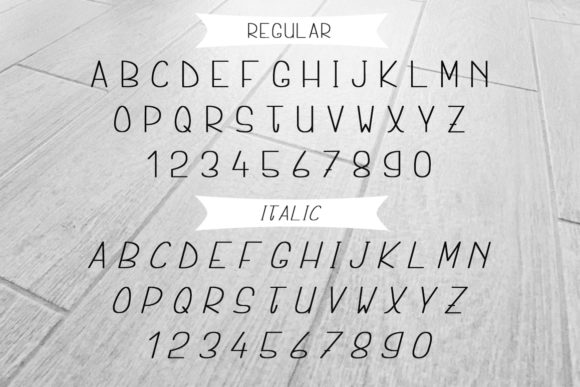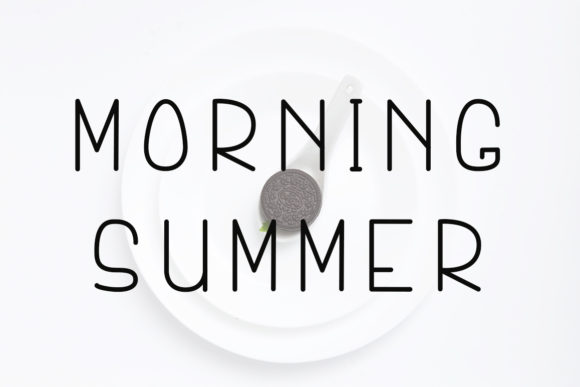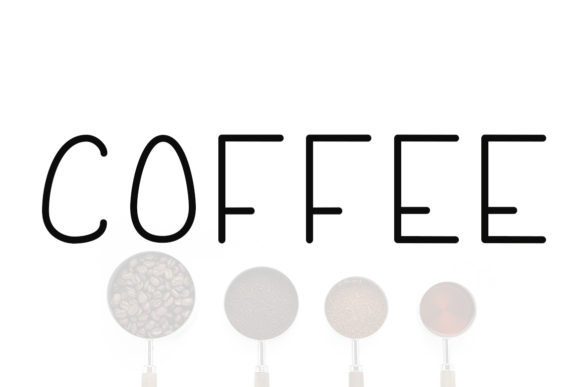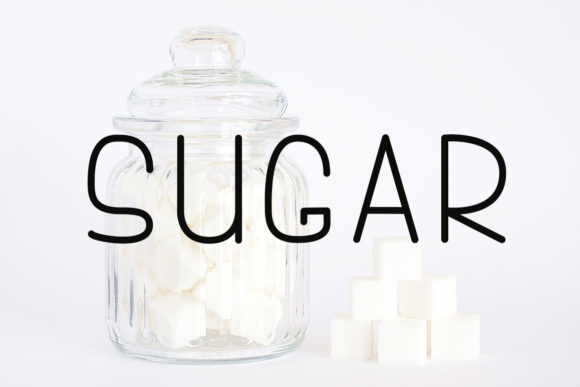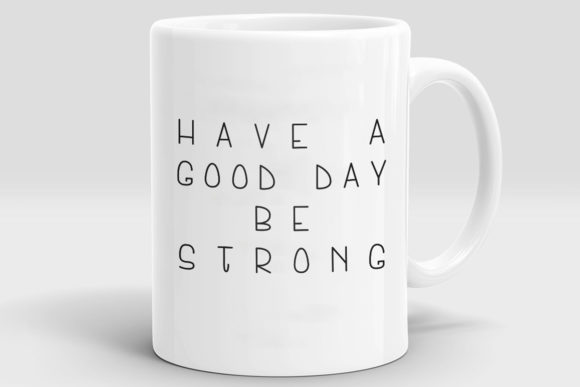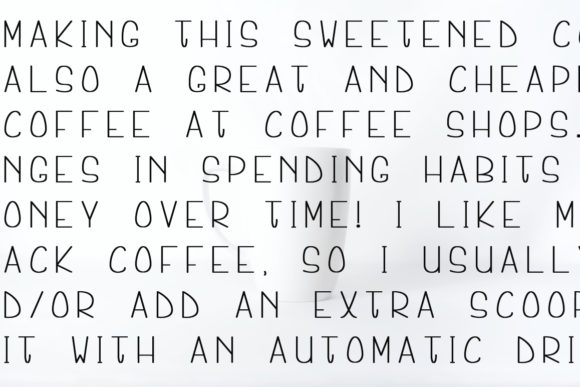
The Perfect Design Companion: Dakimakura Font
Have you ever stared at a blank design canvas, feeling the pressure to create something truly special? It’s in these moments that the perfect font can make all the difference. For designers looking to bring a touch of elegance and sophistication to their projects, the Dakimakura Font is an excellent choice.
This cute and casual sans serif font boasts a clean and beautiful arrangement of letters, making it a versatile addition to any design. Whether you’re working on a formal corporate project or a fun and playful social media campaign, the Dakimakura Font is sure to stand out. Its unique style and undeniable charm make it a valuable asset for any designer looking to elevate their work.
Dakimakura Font Key Features
- Unique Characteristic: Dakimakura Font features a unique blend of traditional Japanese and modern elements, making it an ideal choice for designers and artists seeking a distinctive aesthetic.
- Font Style: The font is available in both regular and bold styles, offering users flexibility in choosing the perfect font weight for their designs.
Dakimakura Font Review
I recently had the chance to play around with the Dakimakura Font, and I’m excited to share my honest thoughts about it.
- The Dakimakura Font is incredibly versatile and can be used for a wide range of applications, from titles to body text.
- The font’s unique design and subtle irregularities give it a charming, handmade feel that’s perfect for creative projects.
- The font includes a variety of weights and styles, making it easy to find the perfect look for your design.
- The Dakimakura Font may not be the best choice for large blocks of text, as the irregularities can make it difficult to read.
- The font is not optimized for smaller font sizes, which can make it look a bit fuzzy or distorted.
The Dakimakura Font is a unique and charming addition to any designer’s toolkit. While it may have some limitations, its versatility and creative potential make it a great choice for the right projects. Overall, I’d definitely recommend giving it a try – just be mindful of its limitations and use it accordingly.
Dakimakura font is commonly used in:
- Japanese-inspired designs, such as